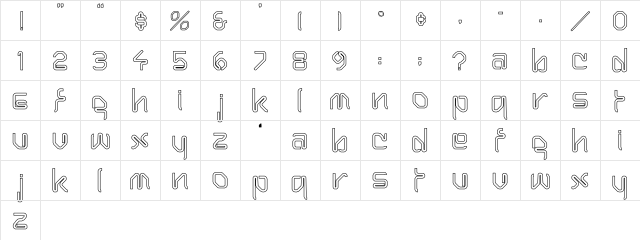
Hairpin-Normal Hollow Regular
Design Context for Hairpin-Normal Hollow Typeface
Hairpin-Normal Hollow is a composed and adaptable typeface that performs quietly and consistently across a wide range of design contexts.